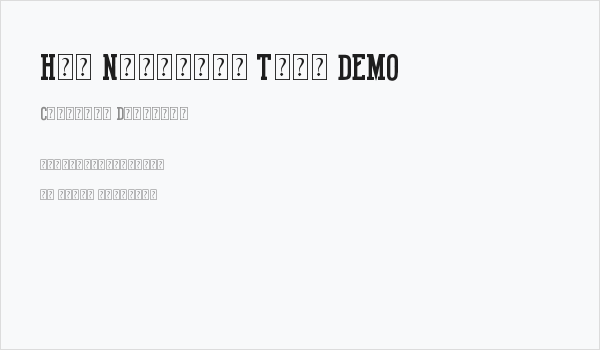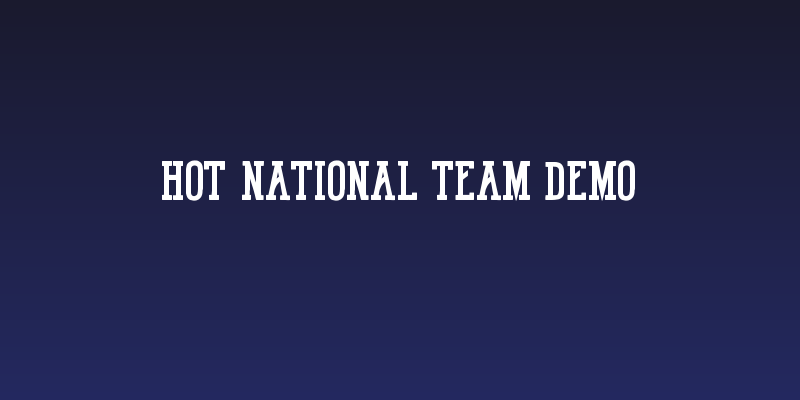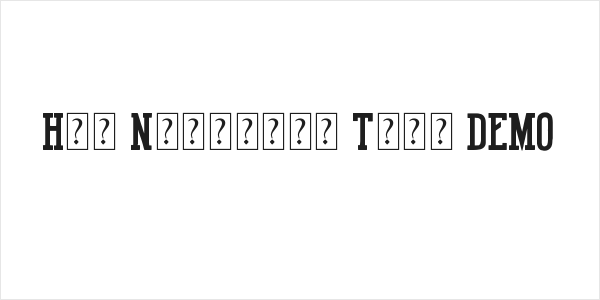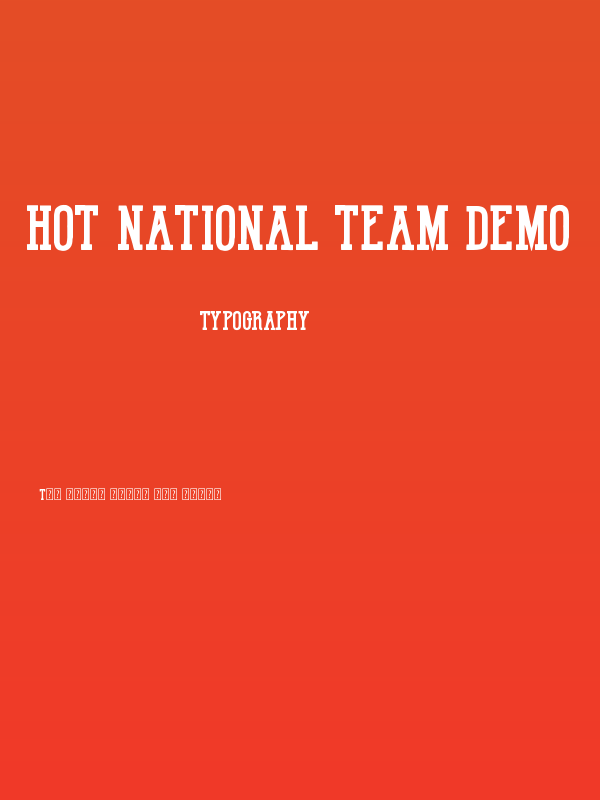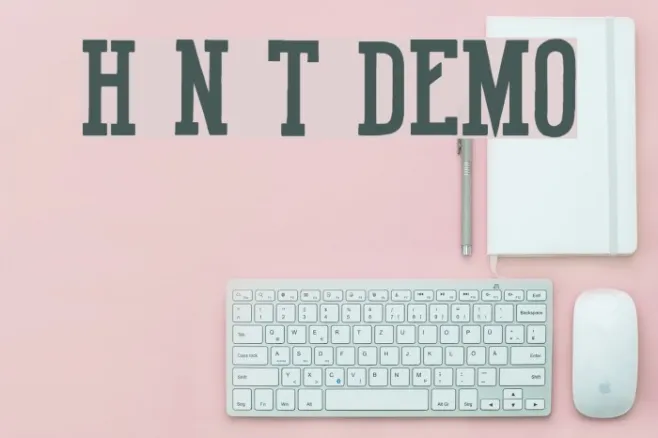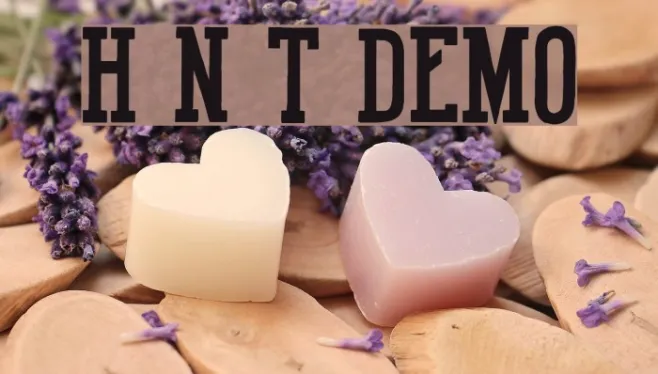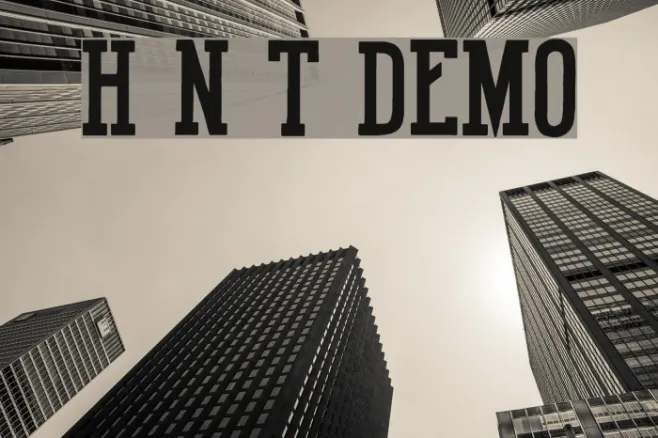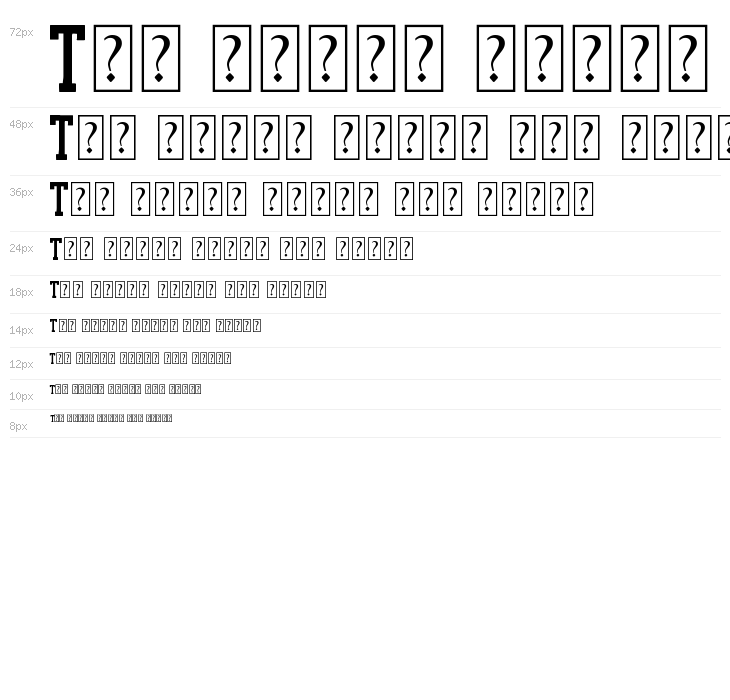
Hot National Team DEMO Font
Hot National Team DEMO Description
This font features bold, uppercase letters with a strong presence, characterized by thick strokes and a slightly condensed appearance. The serifs are prominent, adding a classic touch to the overall design. The font is designed to capture attention, making it suitable for impactful headlines and titles. The characters are evenly spaced, ensuring readability while maintaining a cohesive look. The style is reminiscent of vintage sports typography, evoking a sense of tradition and strength.
| Proposed Projects | Ideal for sports team branding, vintage posters, and bold headlines. |